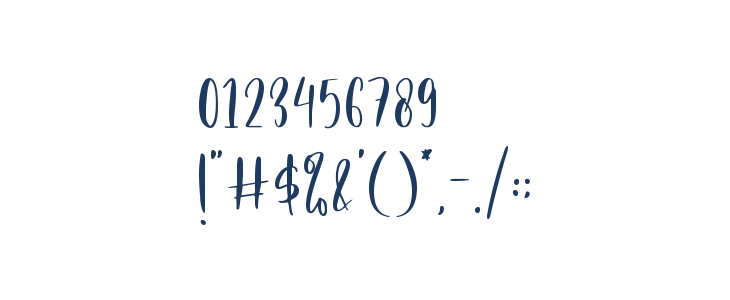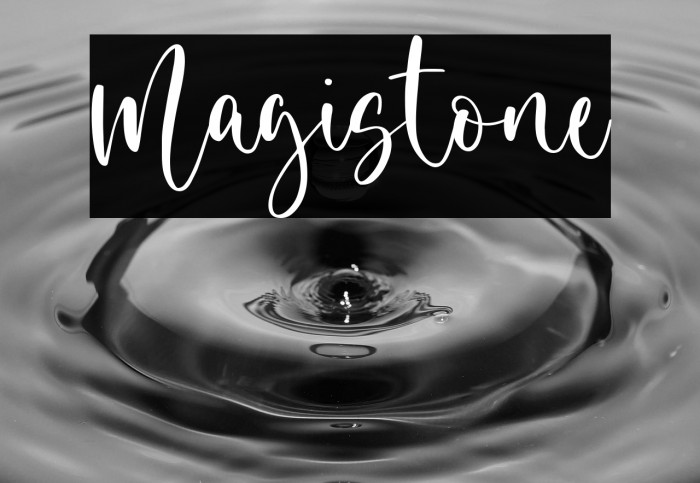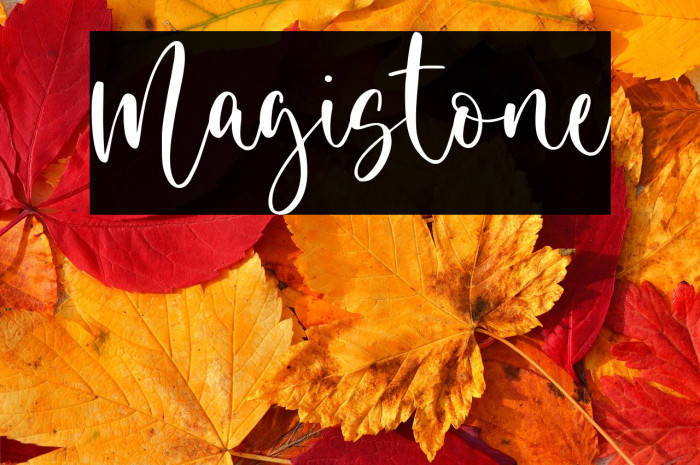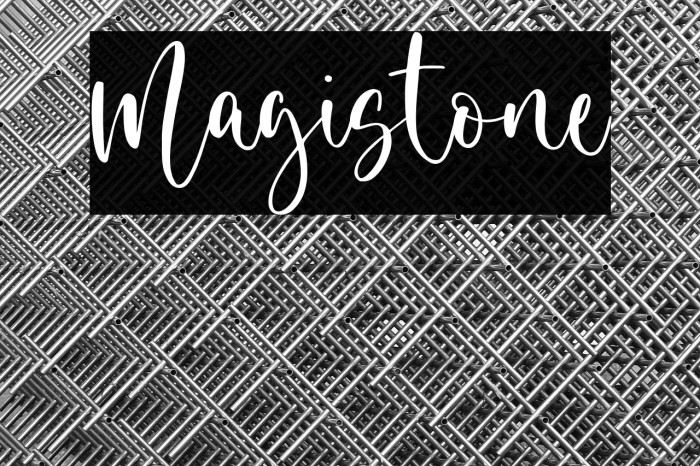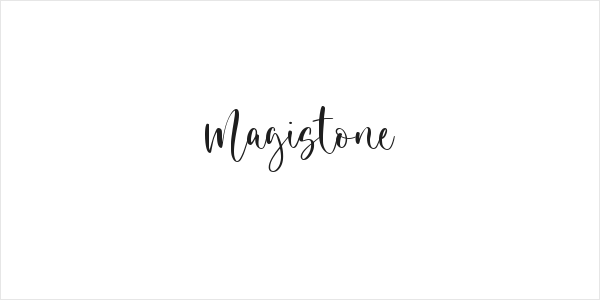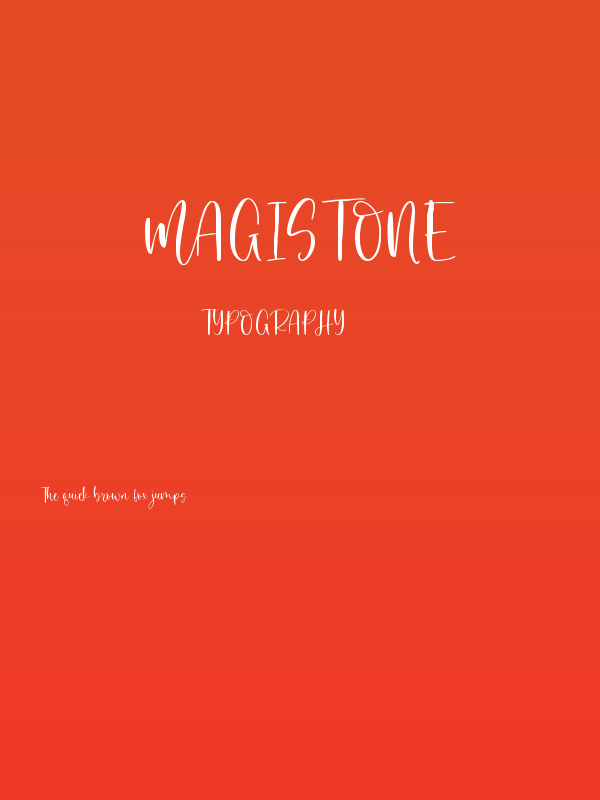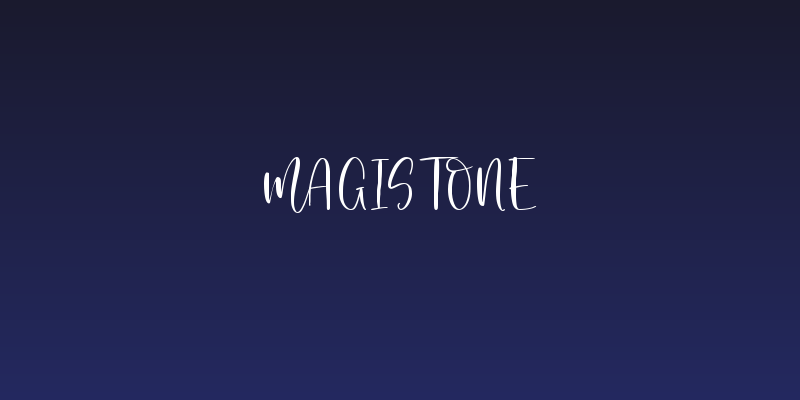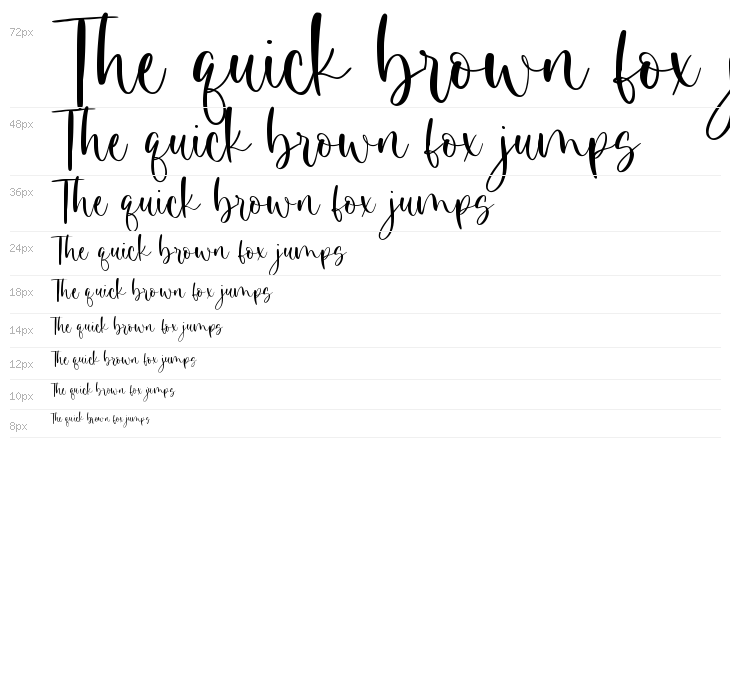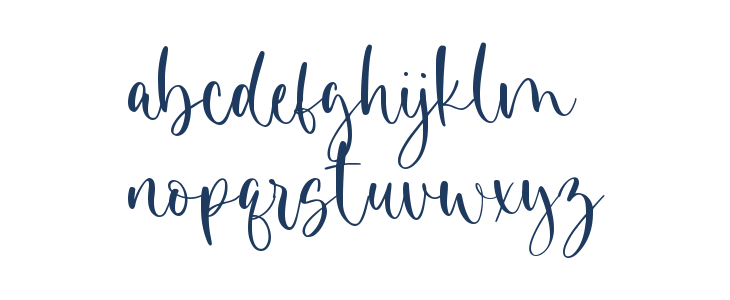
Magistone Font
Magistone Description
This font exudes a lively and energetic script style, characterized by its fluid, hand-drawn appearance. The uppercase letters are tall and elegant, with a slight slant that adds a dynamic feel. The lowercase letters maintain a consistent flow, with loops and curves that enhance its handwritten charm. Numbers and special characters follow the same aesthetic, ensuring a cohesive look across all text. The strokes vary in thickness, providing a medium contrast that adds depth and interest without overwhelming the eye. This font is perfect for projects that require a personal touch, such as invitations, greeting cards, or branding materials.